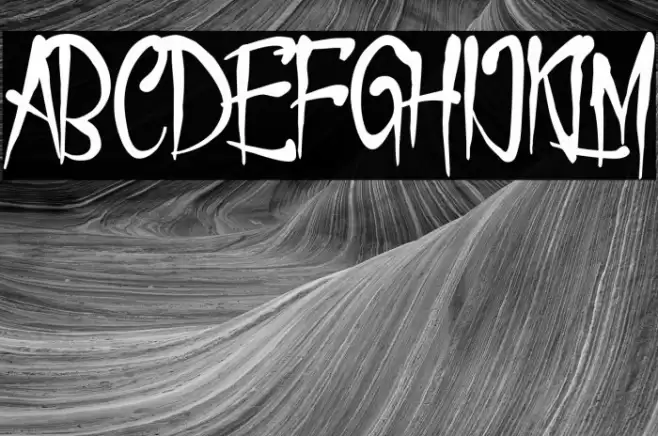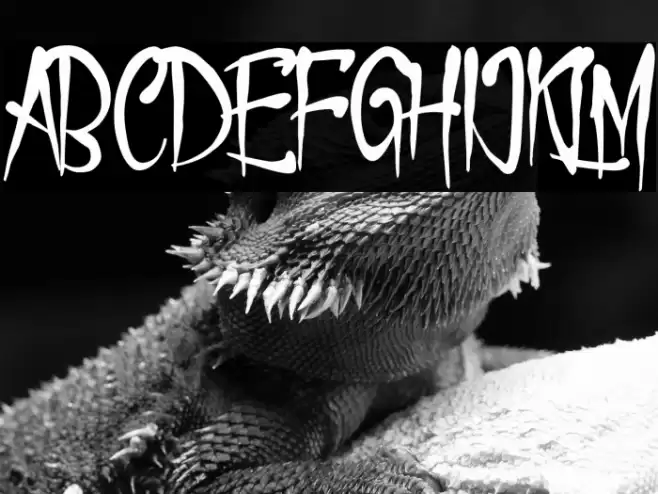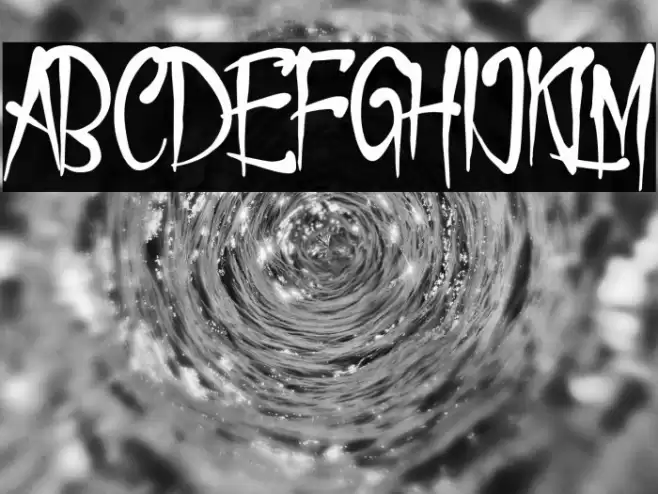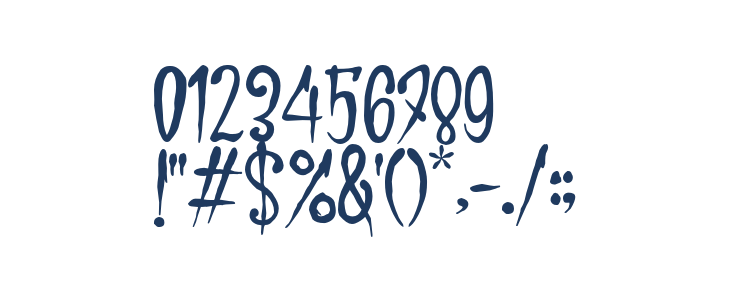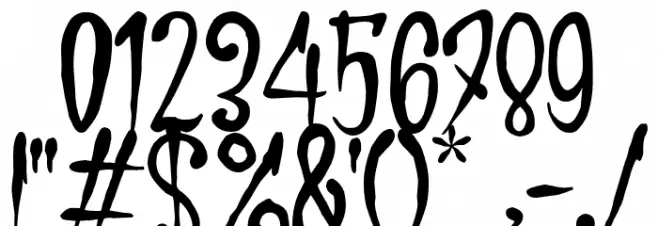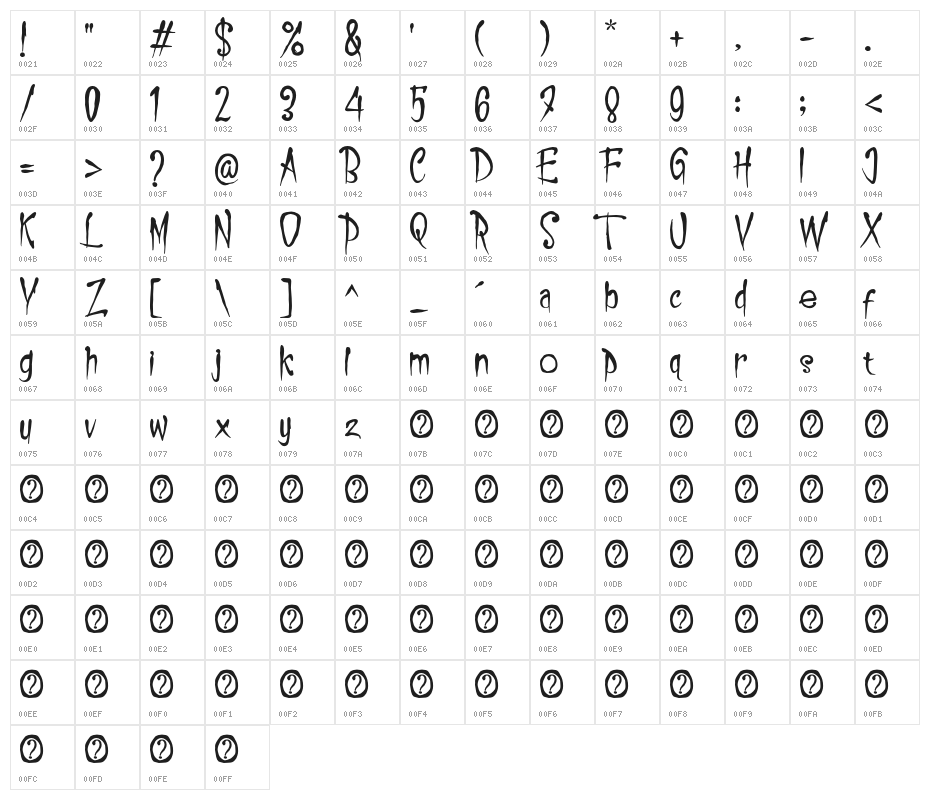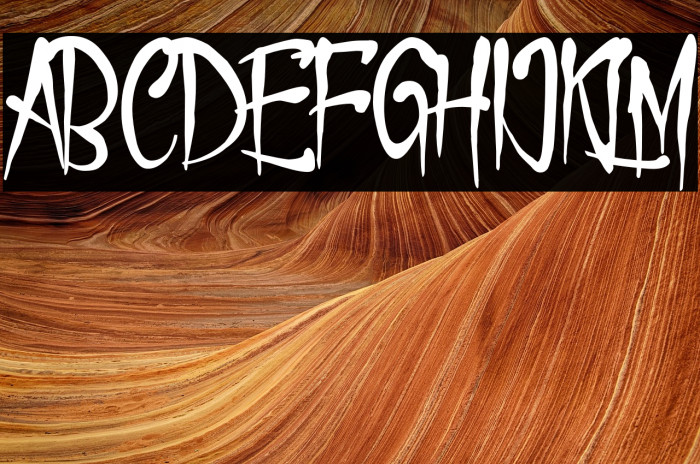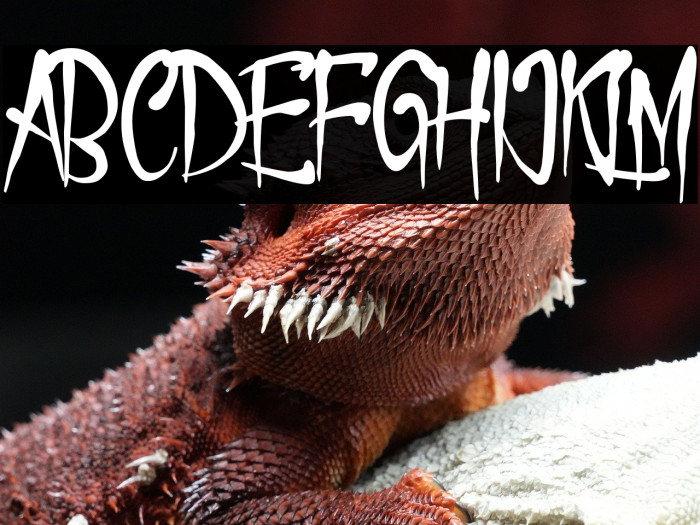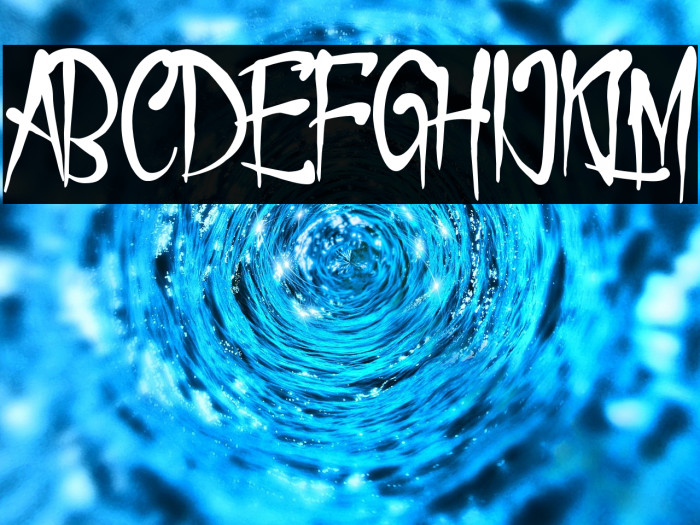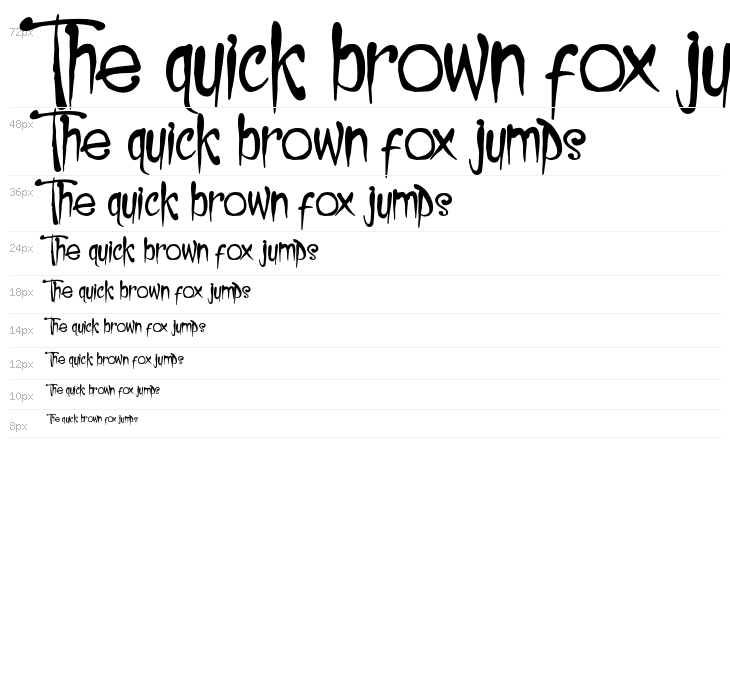
Realiztix Font
Realiztix Description
This font features a bold, expressive style with a hand-drawn appearance. The characters are elongated and slightly irregular, giving a dynamic and energetic feel. The uppercase letters are tall and narrow, while the lowercase letters maintain a consistent height with playful curves. Numbers and special characters follow the same artistic style, adding to the overall cohesive look. The font's unique design makes it suitable for creative projects that require a touch of personality and flair. Its distinctive appearance ensures that it stands out, making it ideal for attention-grabbing headlines or artistic designs.
A bold, hand-drawn font with elongated, expressive characters from Uncategorized fonts.
- Font: Realiztix
- Proposed Projects: Ideal for posters, album covers, graffiti art, and creative branding.
- Overall Style: Modern, Artistic
- Use Case: Headlines, Logos, Artistic Designs
Realiztix UPPERCASE
Realiztix LOWERCASE
Realiztix OTHER CHARS